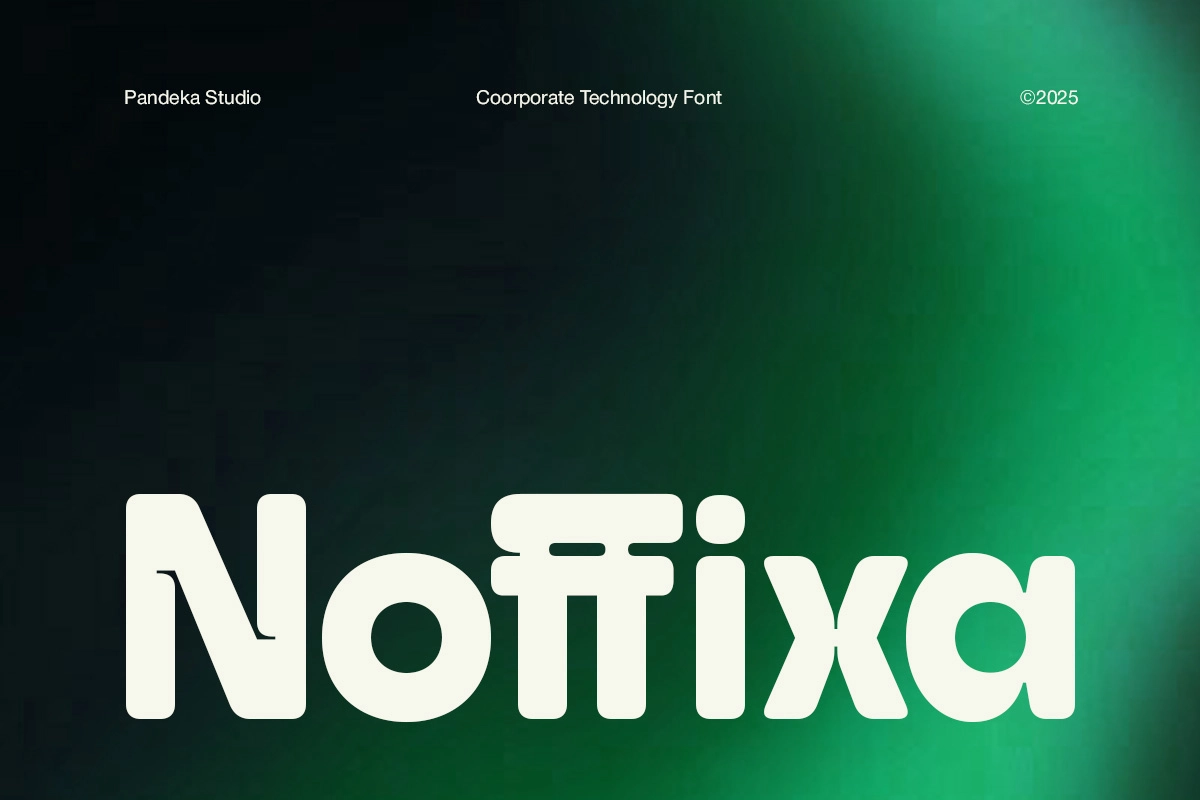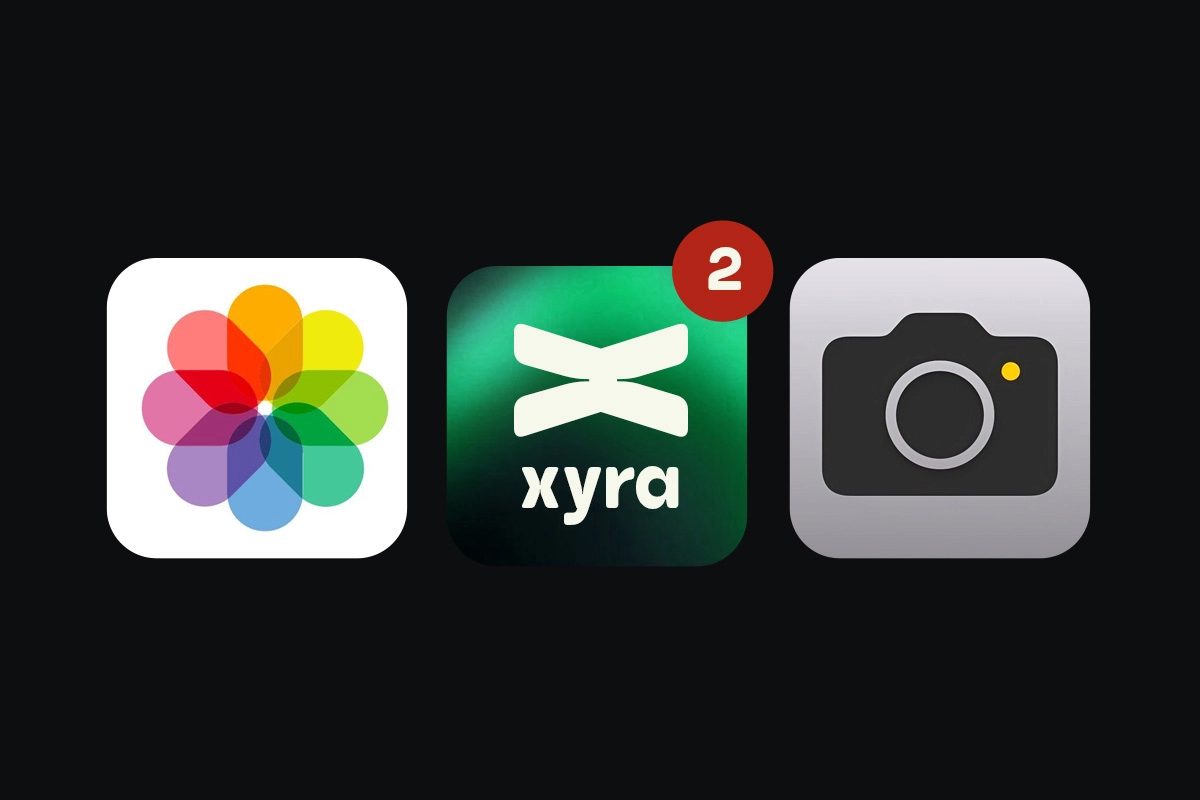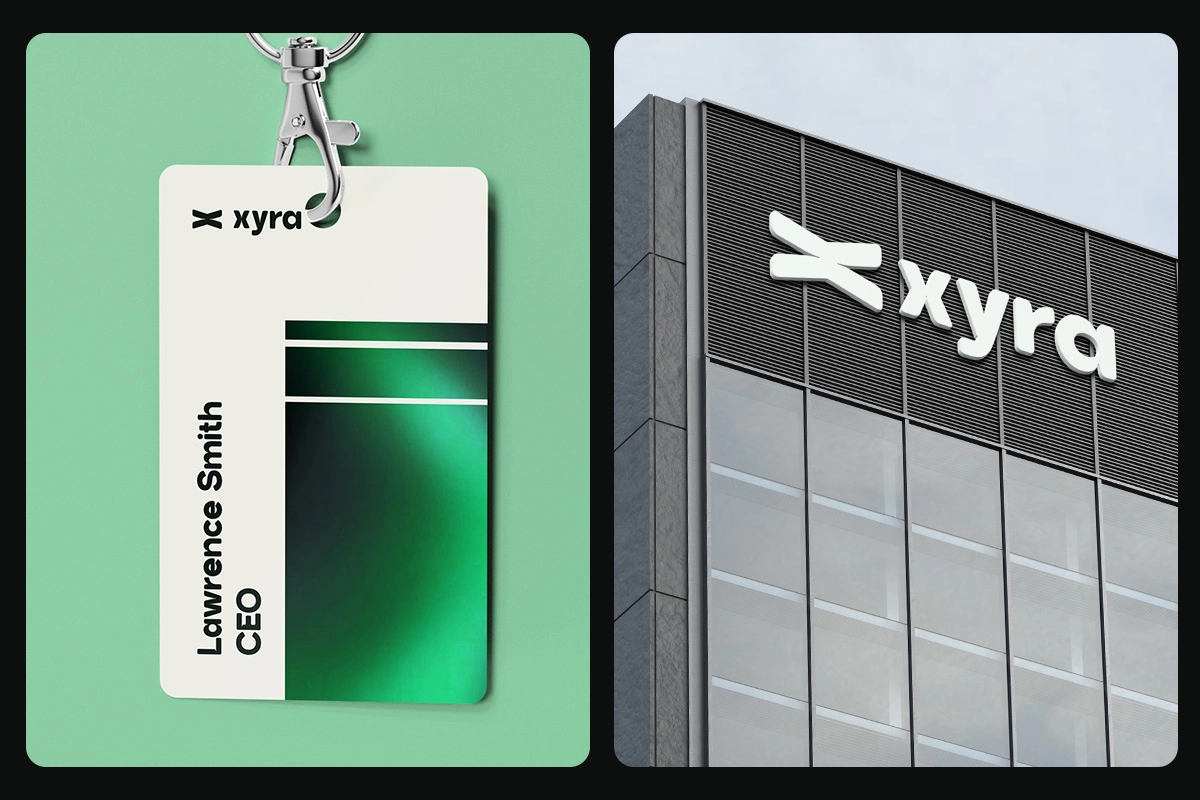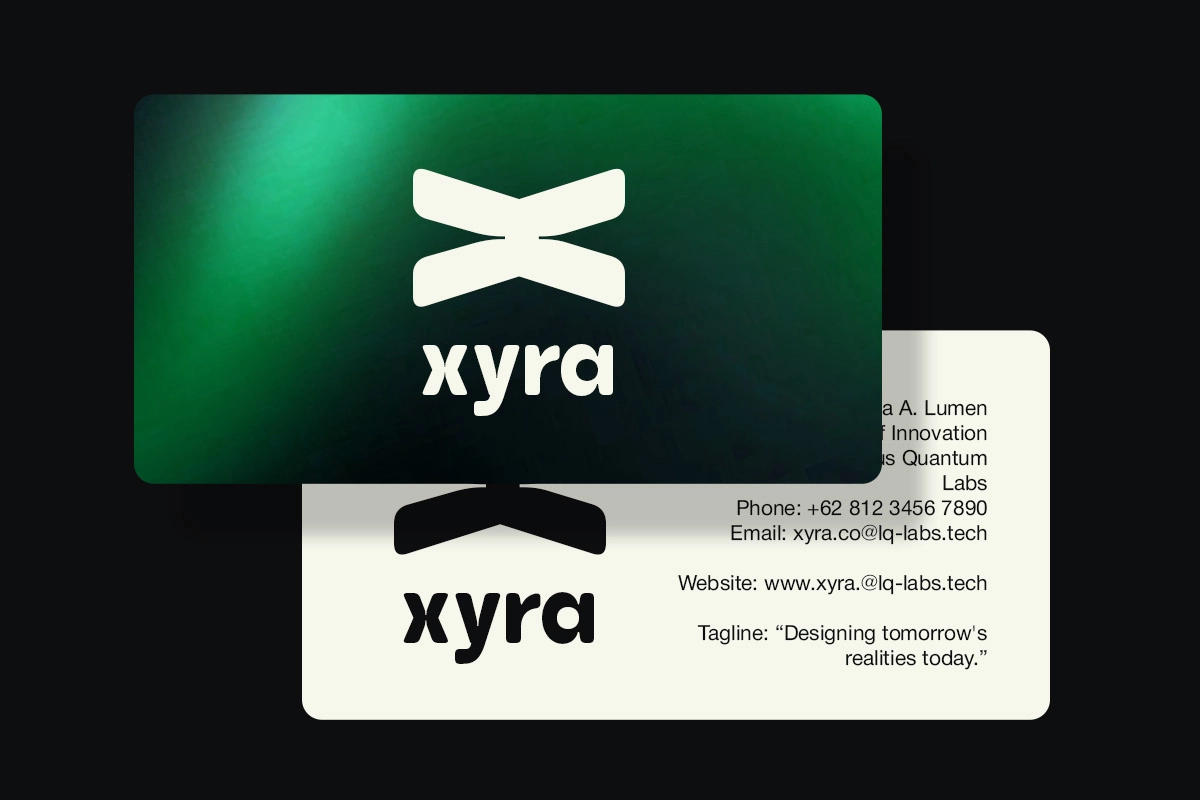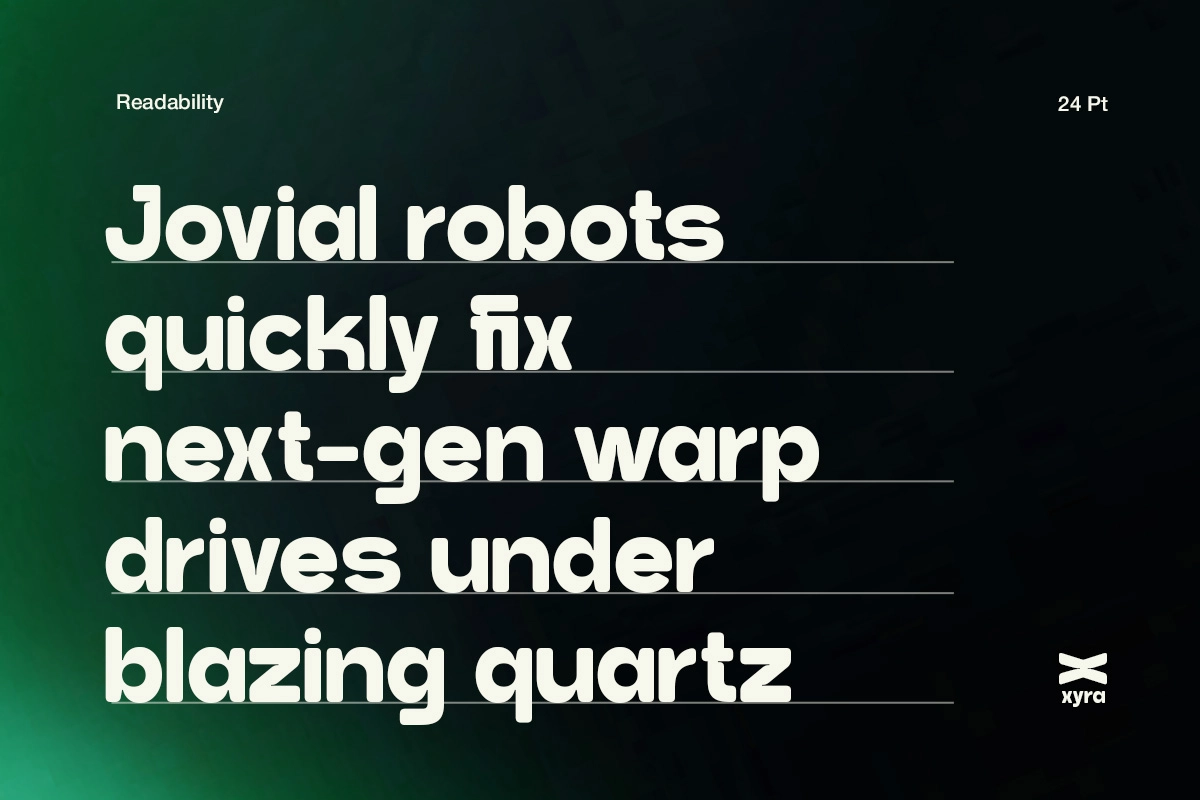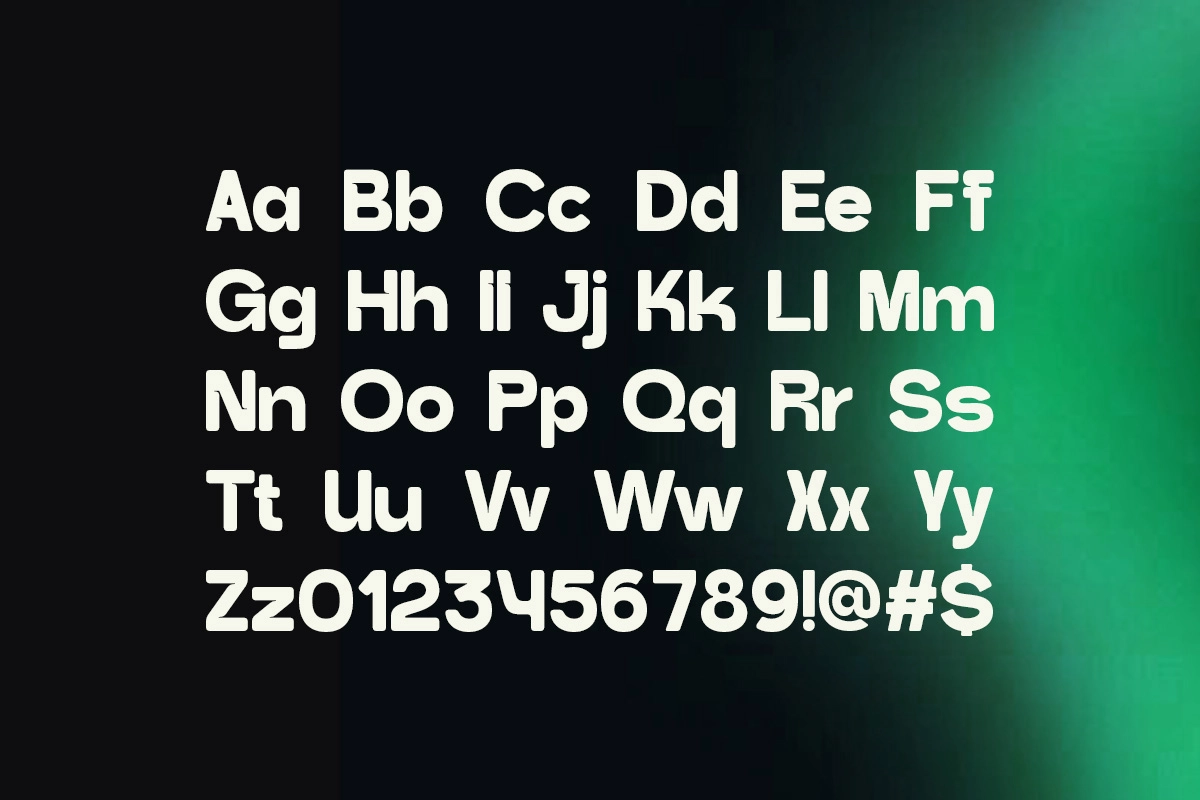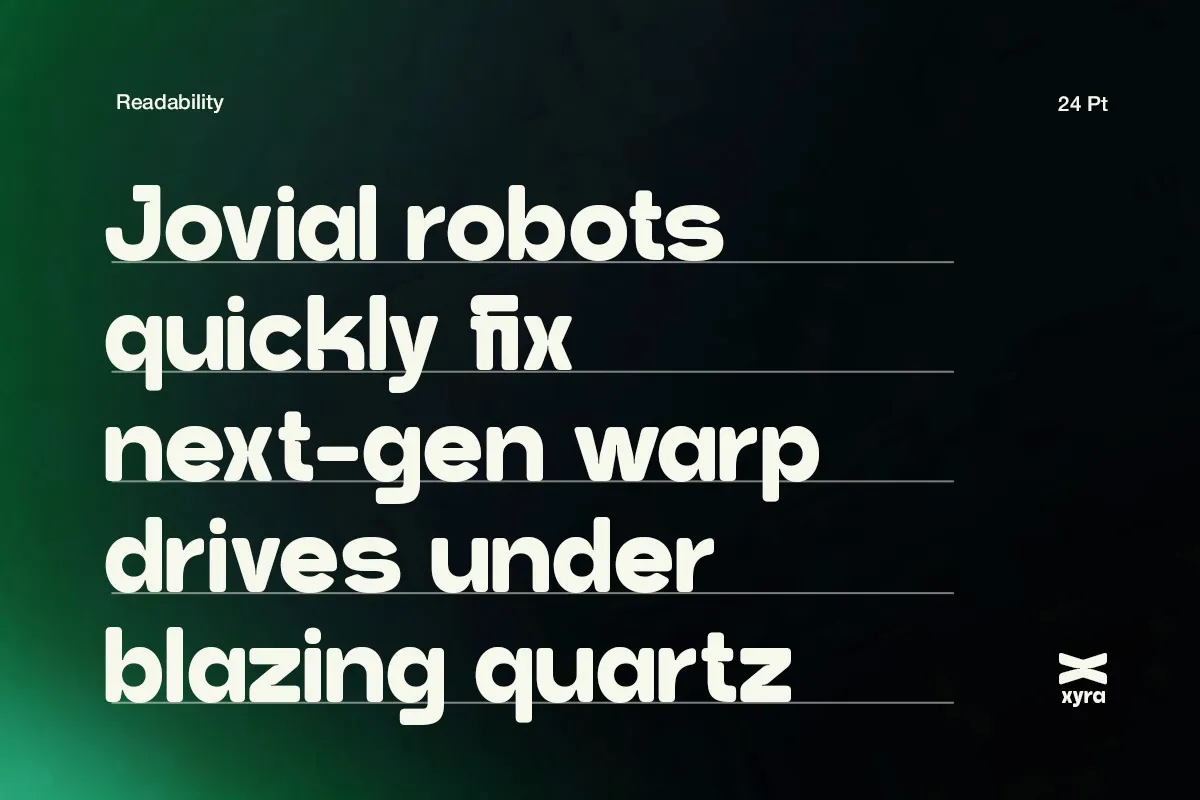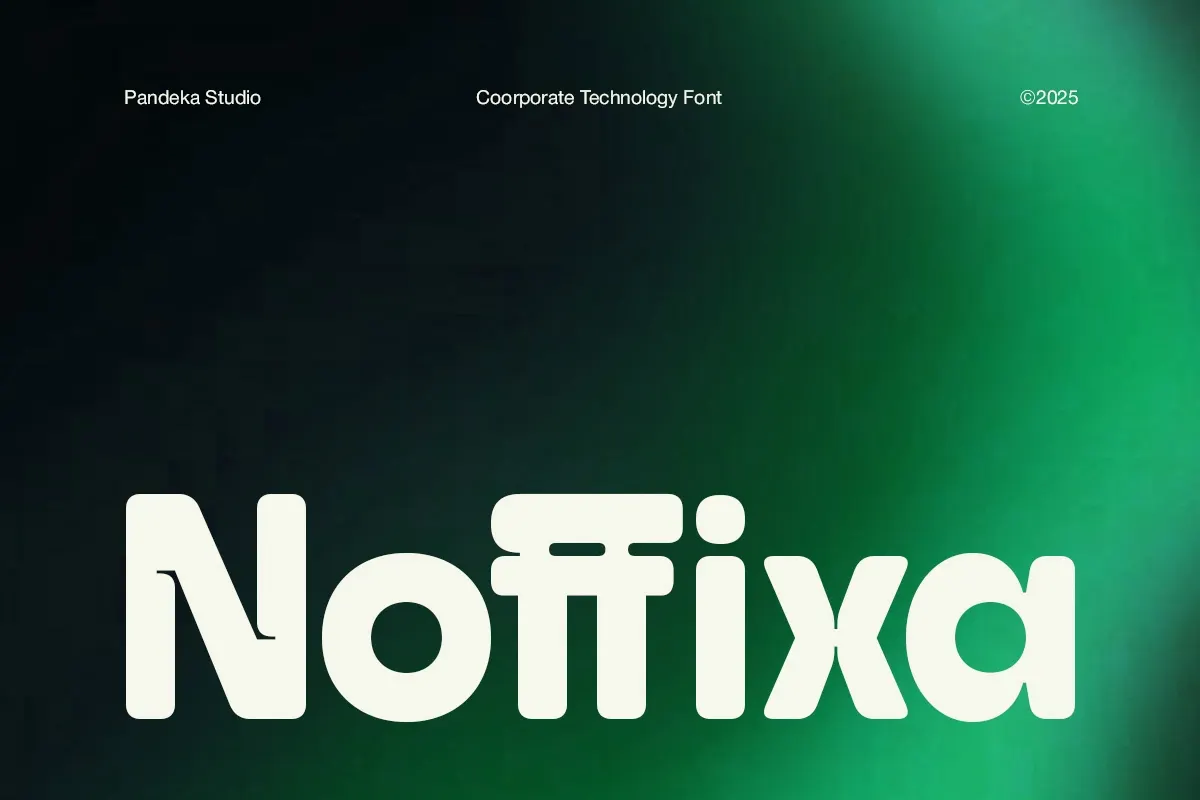
Noffixa - Rounded Geometric Tech Font
Noffixa is a rounded geometric sans built for corporate technology work, with ball terminals, wide open counters, and a steady, single-story construction that keeps a startup-clean, tech-forward posture. The ff ligature carries a low connecting bar and a hooked ear, the one deliberate flourish in an otherwise strict grid.
Noffixa holds its shape from wordmarks down to interface labels, so it works well in short-form brand and product work. Use it for startup branding, SaaS interfaces, app icons, pitch decks, signage, business cards, badge and lanyard prints, and product packaging.